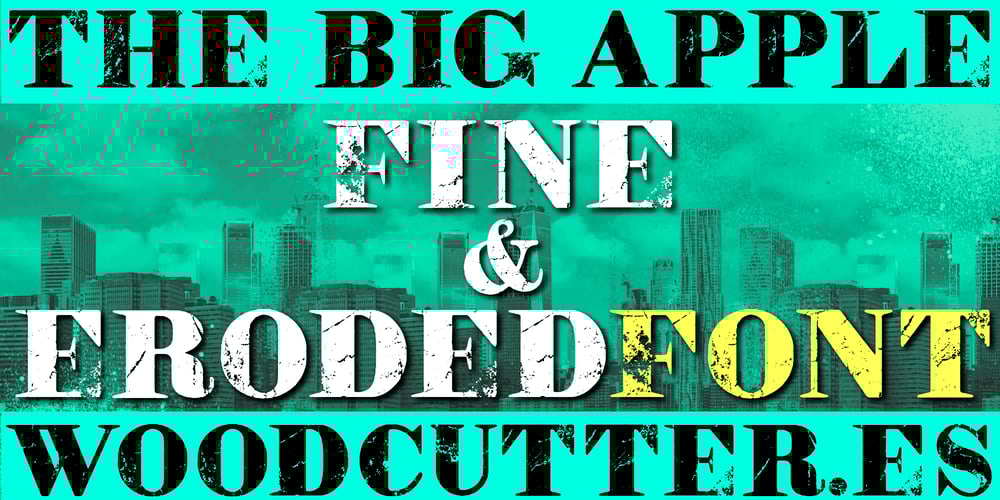
The Big Apple
The Big Apple font
The Big Apple Font Family was designed by Jordi Manero and published by Woodcutter. The Big Apple contains 1 styles and family package options. “The Big Apple” is an uppercase typeface that combines elegance with a touch of subtle wear. Inspired by the iconic spirit of New York, each letter stands with a firmness and sophistication reminiscent of the city’s skyscrapers. The slight wear on the edges of the letters adds a vintage and timeless feel, perfect for designs seeking a balance between the classic and the modern. Ideal for titles, logos, and posters, “The Big Apple” brings an urban and refined touch to any project, evoking the grandeur and charm of the city that never sleeps.